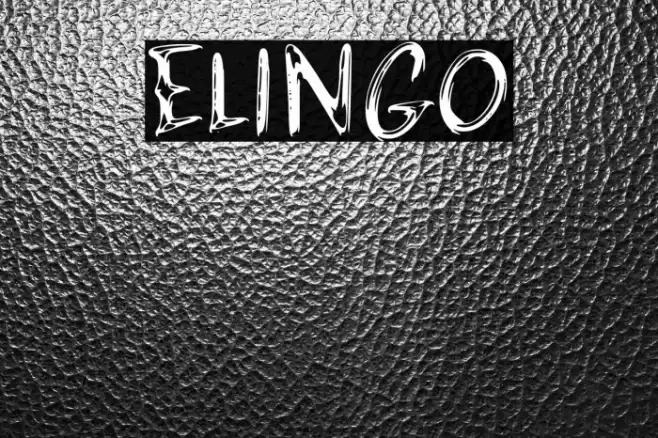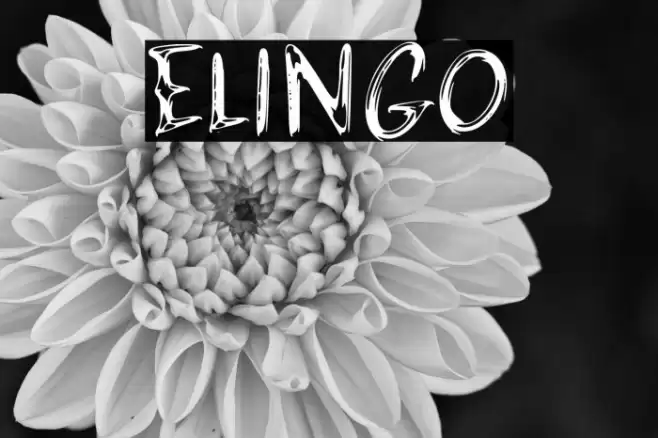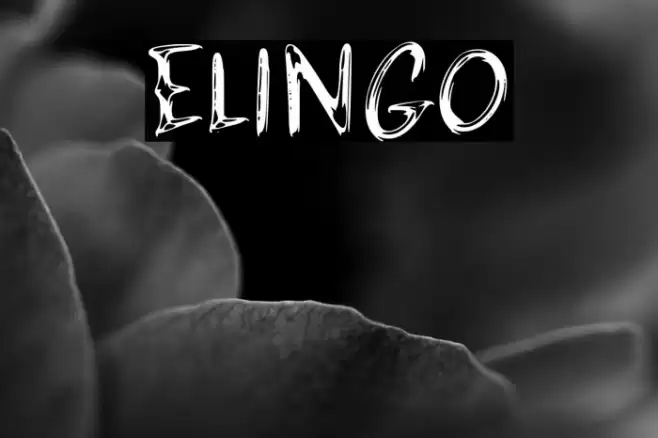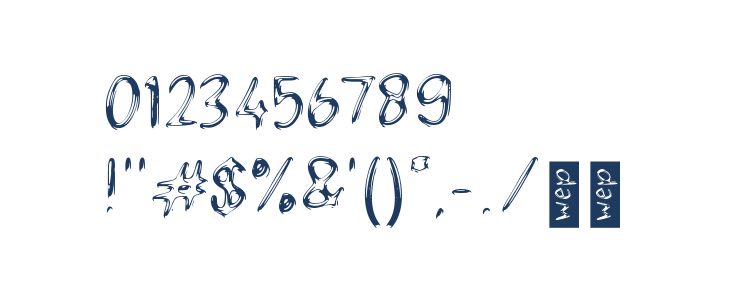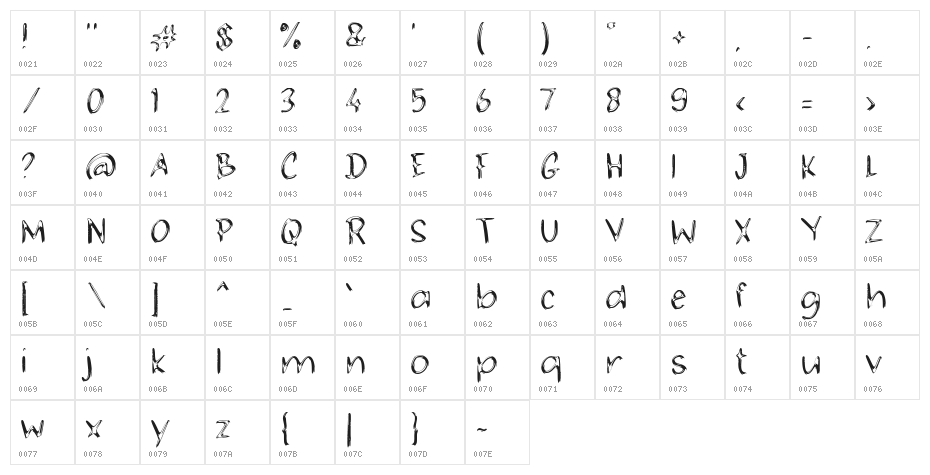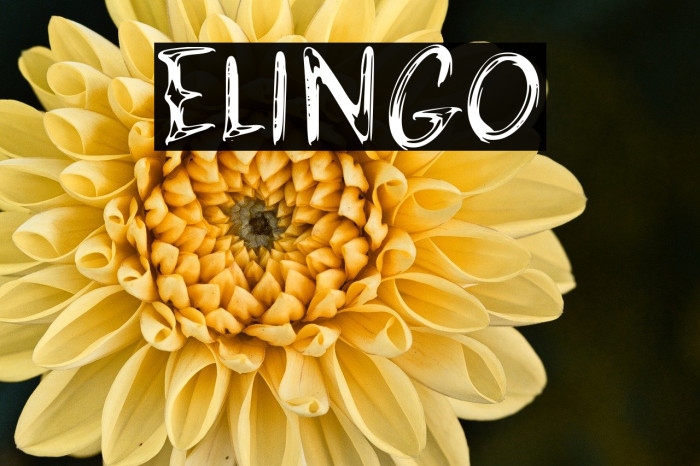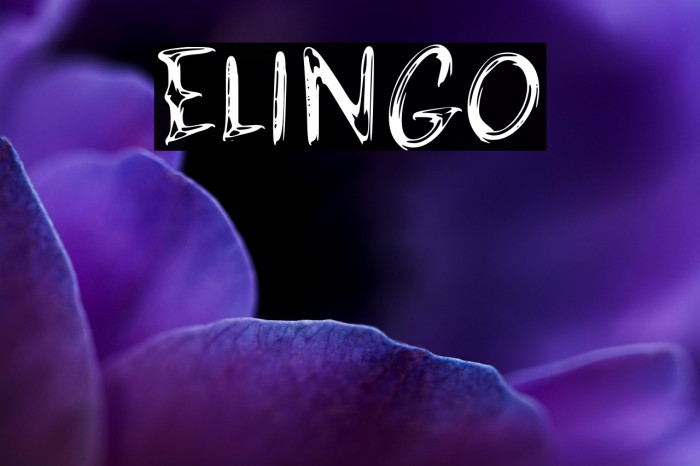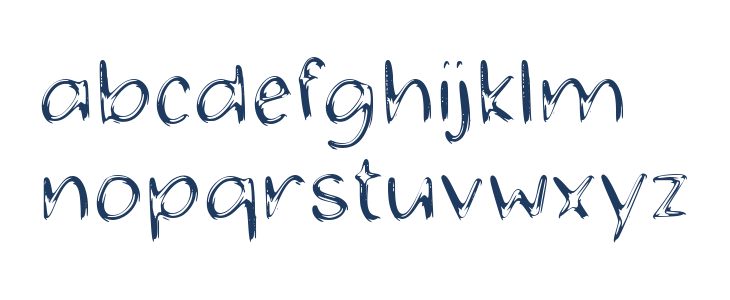
ELINGO Font
ELINGO Description
This font features a bold and dynamic brushstroke style, giving it a lively and energetic appearance. The characters are crafted with a sense of movement, as if painted with a swift, confident hand. The strokes vary in thickness, adding a sense of depth and texture. The uppercase and lowercase letters maintain a consistent style, with a slightly irregular baseline that enhances its casual, artistic feel. Numbers and special characters are equally expressive, making this font versatile for creative projects.
A bold, brushstroke font with dynamic and expressive characters from Uncategorized fonts.
- Proposed Projects: Ideal for posters, album covers, artistic branding, and any project requiring a bold, creative touch.
- Overall Style: Modern, Artistic